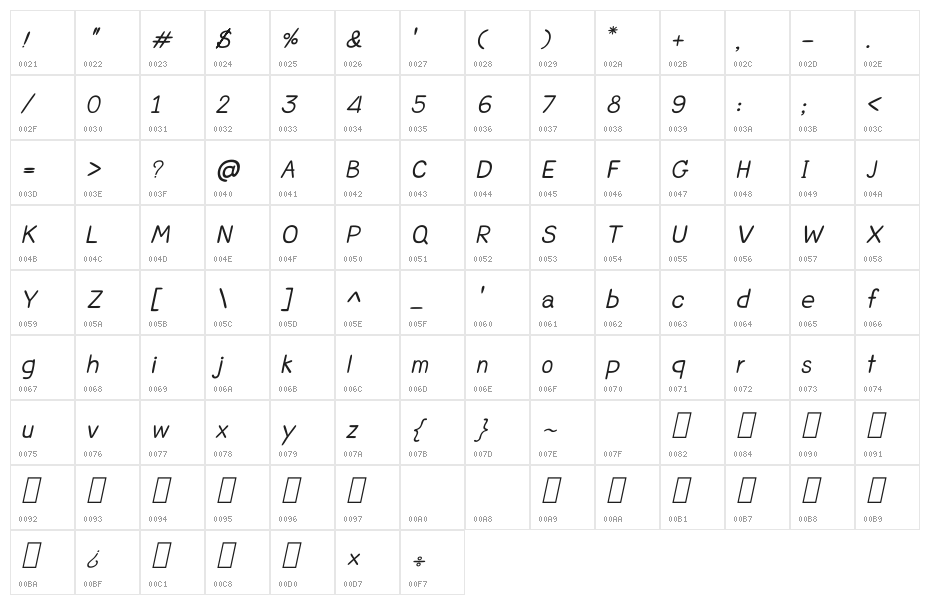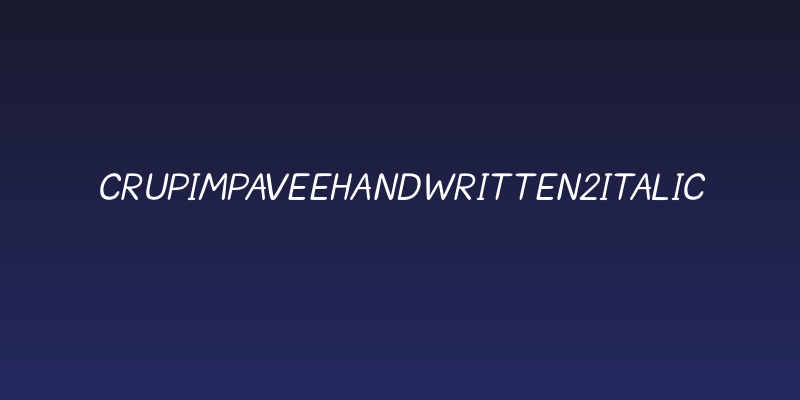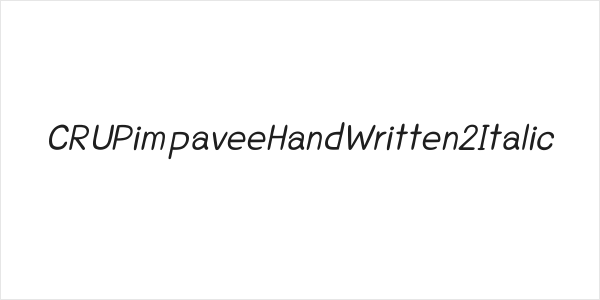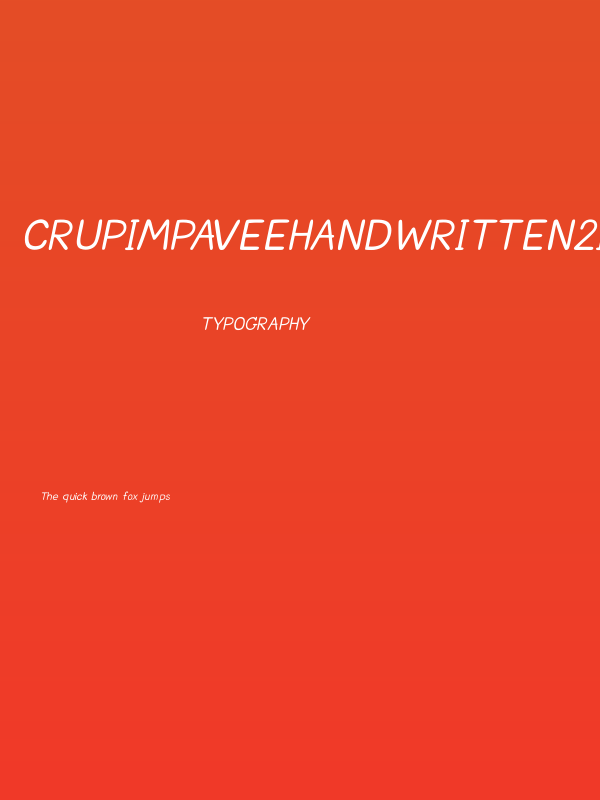
CRUPimpaveeHandWritten2Italic Font
CRUPimpaveeHandWritten2Italic Description
This font features a handwritten style with a smooth, flowing appearance that mimics natural handwriting. The letters are slightly slanted, adding a dynamic and casual feel. Uppercase and lowercase letters are well-proportioned, with a consistent stroke width that maintains readability. The numerals and special characters are designed to complement the alphabet, ensuring a cohesive look across all text. The overall design is clean and modern, making it suitable for a variety of creative projects. The italicized form enhances its handwritten aesthetic, providing a personal touch.
| Use Case | Logos, Invitations, Greeting cards |
| Proposed Projects | Ideal for personal notes, invitations, greeting cards, and creative branding projects. |